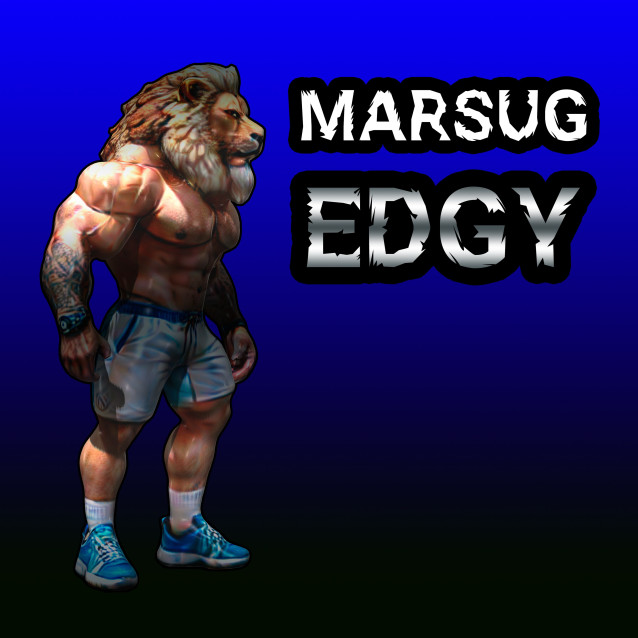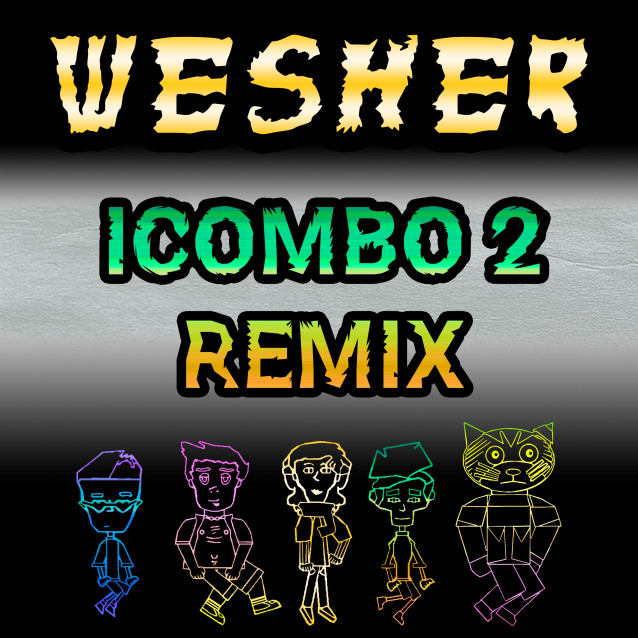
Destroyed Display Font
Destroyed Display Font – is a font created by Matt Mars (a.k.a. MARSUG, a.k.a. WESHER) in 2024. It supports both Latin and Cyrillic characters.
This font was first used in the music album WESHER – “ICOMBO 2 Remix” and also appeared in other music releases by MARSUG.